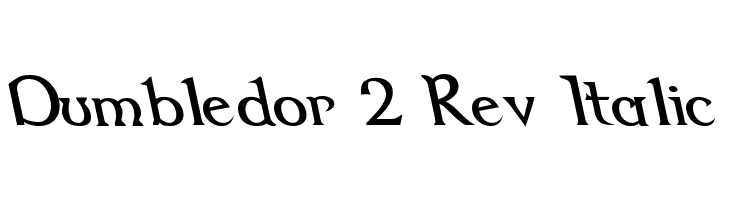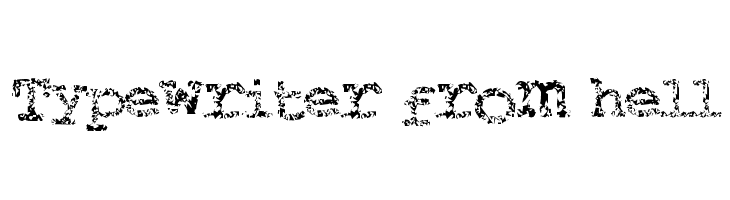
A whimsical, decorative font with a medieval flair and italic slant.
A distressed, chaotic font with a grunge aesthetic.
A sleek, modern font with geometric, minimalist design and thin lines.
A bold, abstract font with an artistic, hand-drawn style.
A decorative, Art Deco-inspired font with elongated, narrow letterforms and geometric elegance.
A playful, handwritten-style font with bold, consistent strokes and a casual vibe.
A bold, rounded font with a vintage Western flair and modern versatility.
A bold, geometric font with a hollow interior and condensed width, offering a modern and futuristic look.